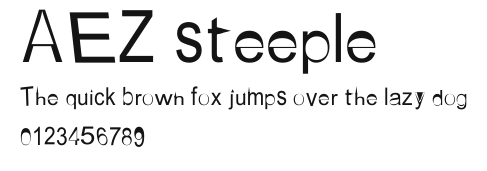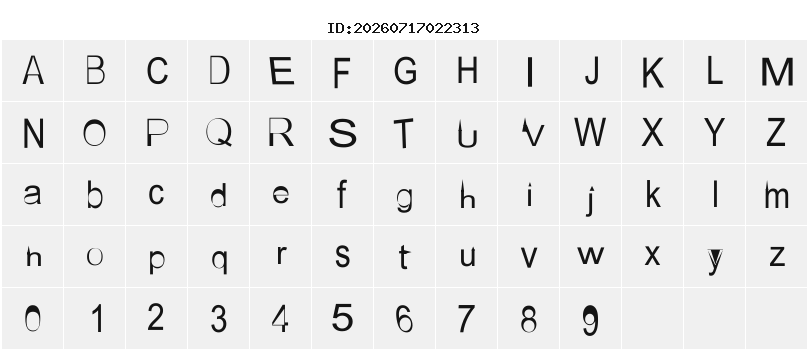
• Font Name: AEZ steeple
• Designer: Anastacia E. Zittel
• Description: Font originally named AEZnotyourmomsarielfont, now renamed AEZsteeple thanks to Nadine at the fontastic list!
About AEZ steeple.ttf
AEZ steeple.ttf is a modern, elegant sans-serif font designed for ultimate readability and visual harmony. Perfect for branding, headlines, web design, and print materials.